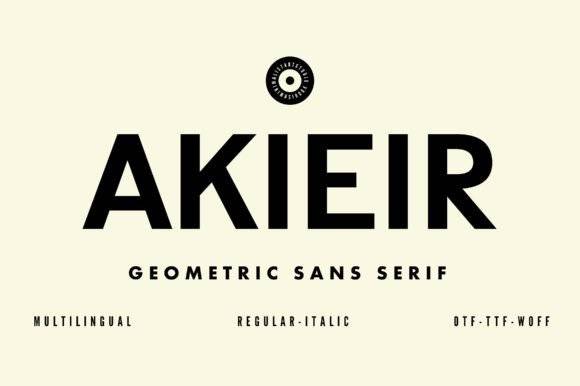
Akieir Font for Headlines, Posters and Branding Projects
This is a powerful display font designed to bring structure and intensity to headline-focused design work. Akieir features clean, angular strokes and deliberate spacing, ideal for making bold statements in branding and advertising. Its versatility makes it suitable for a wide range of applications, from posters to digital interfaces, where the goal is to capture attention quickly. As an arc font for branding projects, Akieir ensures that your message stands out with clarity and impact. The unique character of this font not only enhances visual appeal but also fosters brand recognition and memorability.
As a font entity, Akieir is tailored for maximum visibility in large-format applications like posters and identity graphics, offering exceptional clarity while maintaining strong visual personality.
Whether you're building campaigns or packaging, Akieir empowers your message with precision and punch.
- Headline banners and magazine layouts
- Branded packaging and product logos
- Event posters, flyers, and signage
- Website hero titles and graphics
- Merchandise designs with a bold look
- Confident, geometric style with high impact
- Perfect for large display and branding use
- Sharp legibility in both print and digital media
- Engineered for clean reproduction at all sizes
Q: What style is the Akieir font?
A: Akieir is a modern, angular display font with a bold and structural aesthetic, ideal for branding and titles. This typeface captures attention with its sharp edges and clean lines, making it a perfect choice for contemporary designs. Additionally, the alnair star font features unique geometric shapes that enhance its visual impact, ensuring it stands out in any application. Whether used in print or digital media, Akieir effortlessly conveys a sense of modernity and strength.
Q: Is it easy to read at large sizes?
A: Absolutely. It was specifically built for clear display in posters, headlines, and signage.
| Font Style | Modern angular display | Heavy sans-serif | Classic serif |
| Headline Impact | Very high visual impact | Moderate impact | Low emphasis |